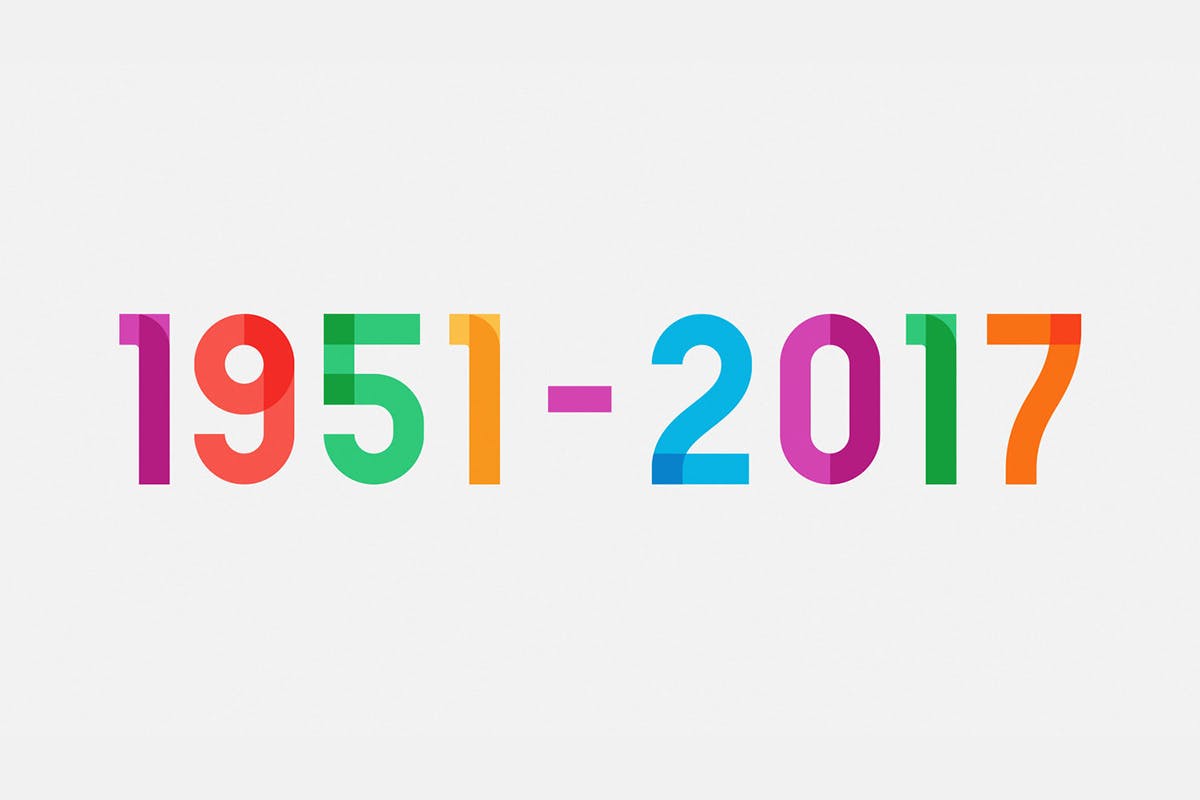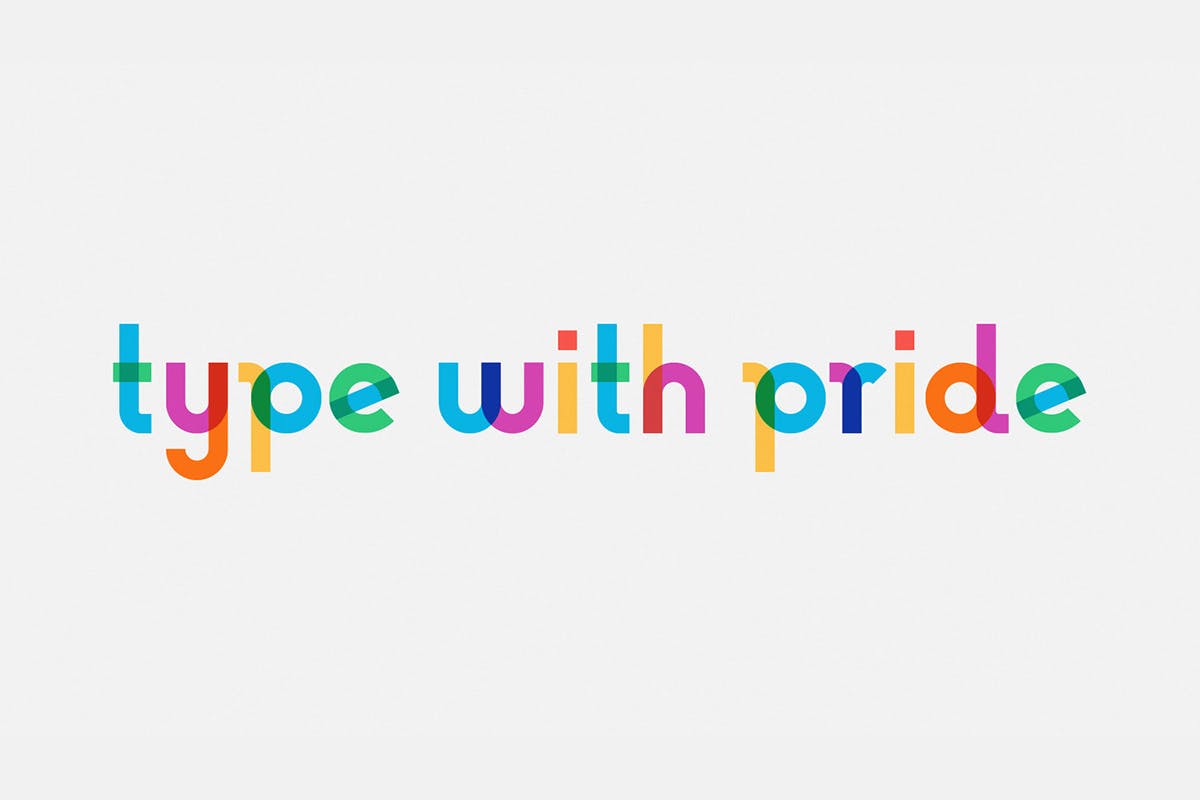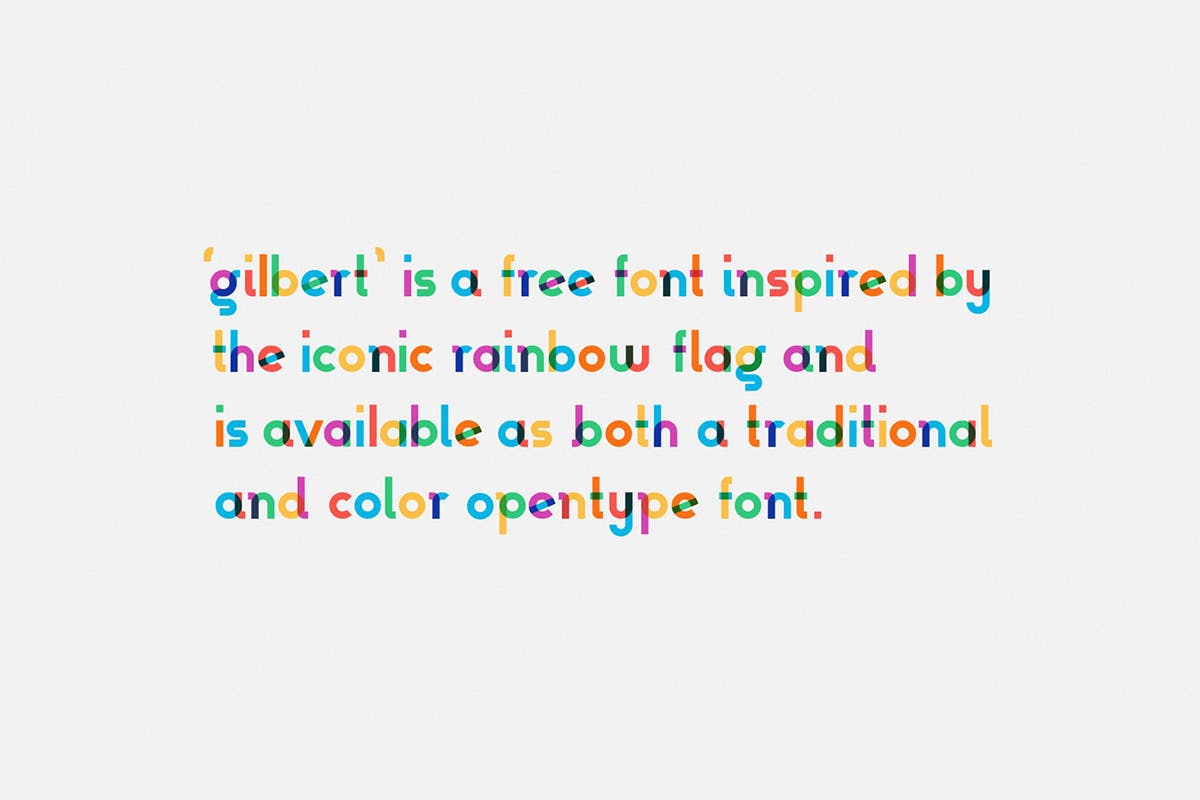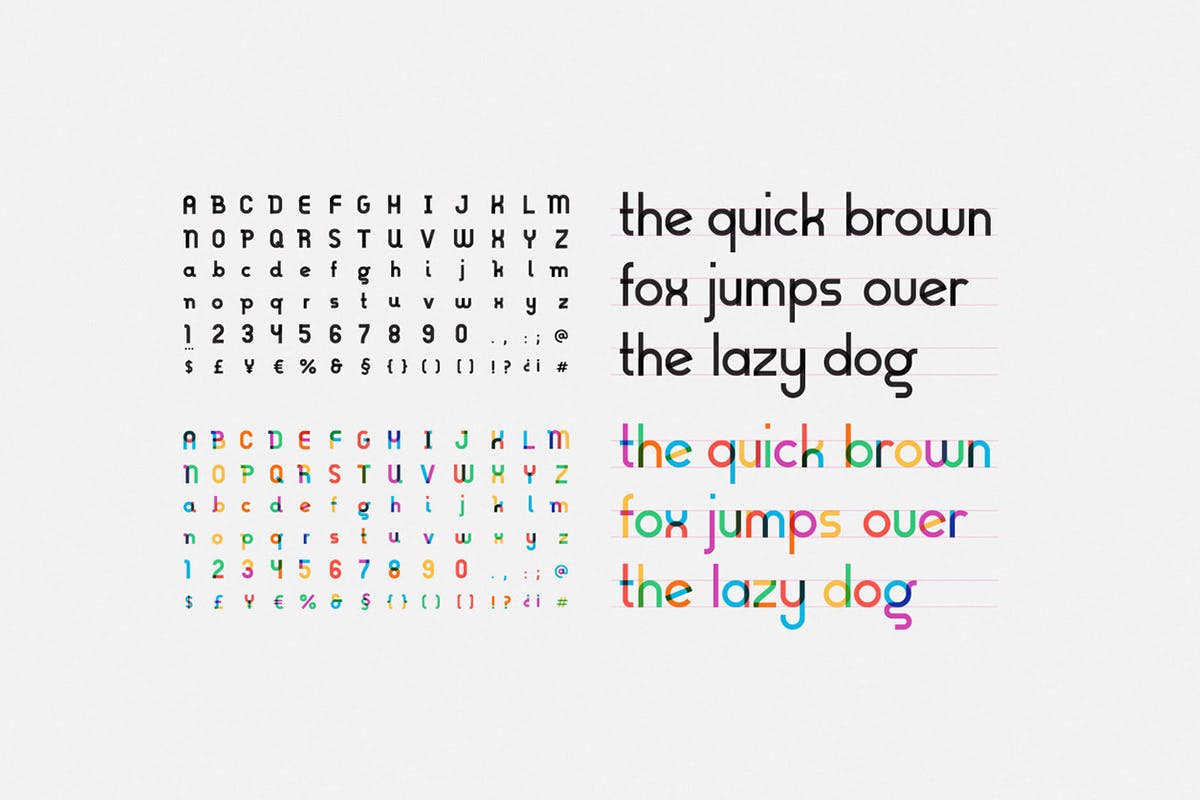
Gilbert Free Animated Typeface
Gilbert Free Animated Typeface is a font that was originally coming for striking headlines and statements. It can live on banners for rallies and protests. It now currently comes into a whole family of weights and styles. In addition, the font is available in two versions, a standard vector font and a color font (in OpenType-SVG format). Also, it is currently usable in Photoshop CC 2017 only.